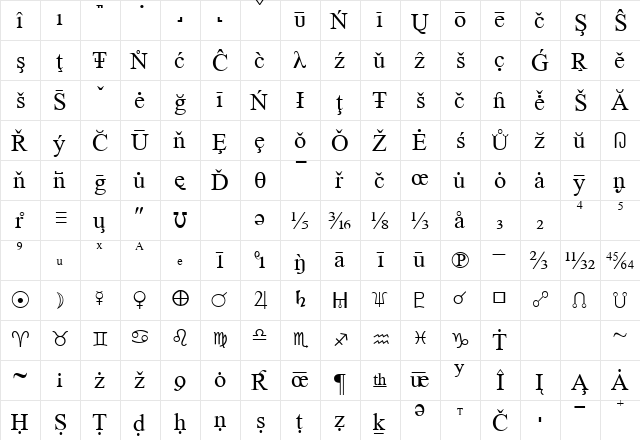
Info16 Regular
Info16 takes a measured approach to typography — its balanced proportions and neutral character make it a reliable workhorse for both digital and print work.